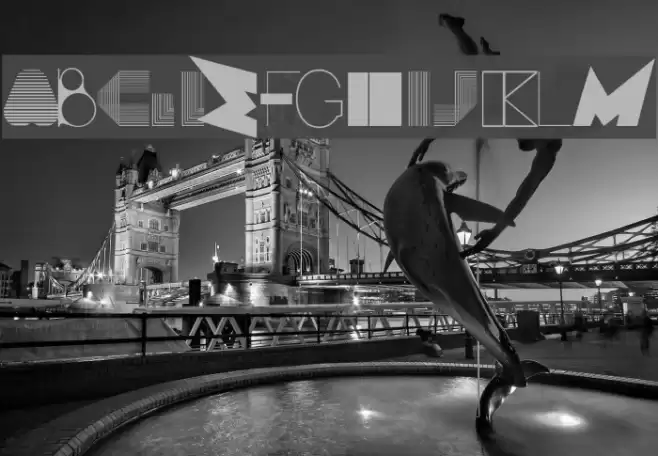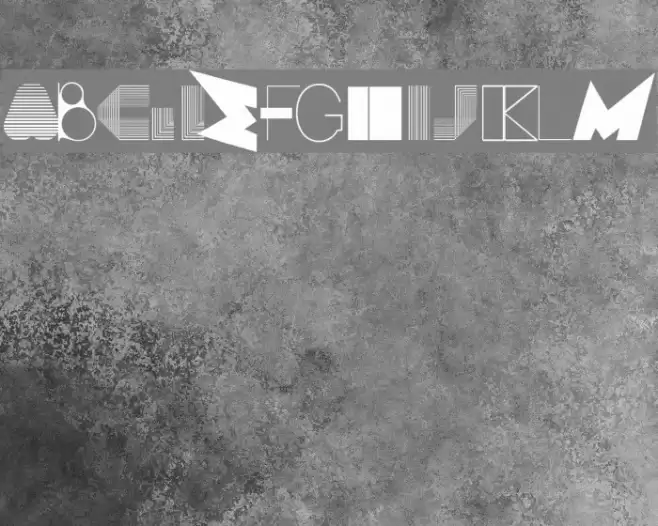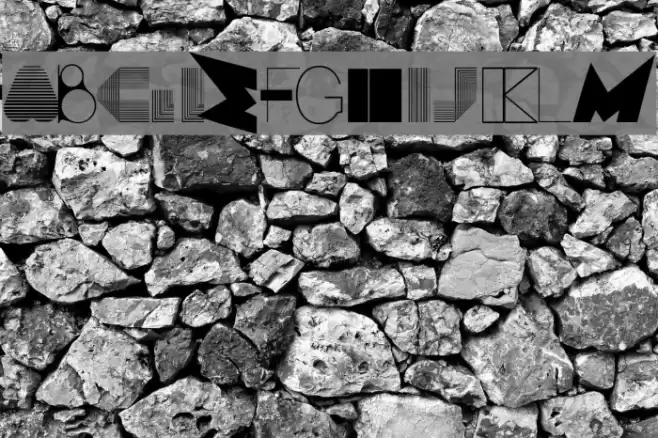
BOSSM-A Font
BOSSM-A Description
This font features a highly creative and abstract design, with each letter showcasing a unique geometric pattern or shape. The uppercase letters are characterized by bold, artistic elements that incorporate lines, angles, and curves in a visually striking manner. The font lacks uniformity, with each character presenting a distinct style, making it ideal for artistic and avant-garde projects. The use of negative space and varying line thicknesses adds to its dynamic and modern appeal. This font is not suitable for body text due to its intricate design but excels in creating eye-catching headlines or logos.
A bold, abstract font with unique geometric designs for each letter from Uncategorized fonts.
- Proposed Projects: Ideal for artistic posters, modern logos, album covers, and creative branding materials.
- Character Spacing: Varied, depending on the character design.
- Contrast:
- Overall Style: Modern, Artistic, Abstract